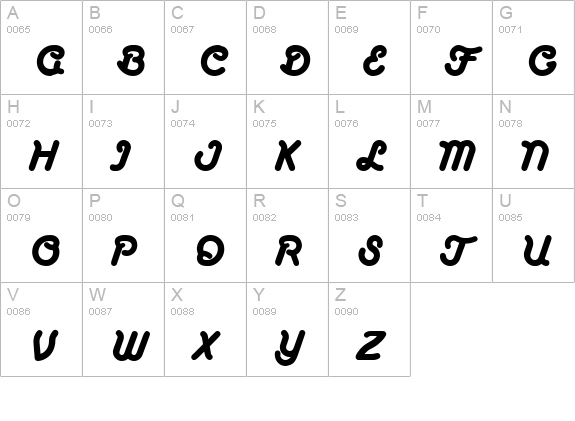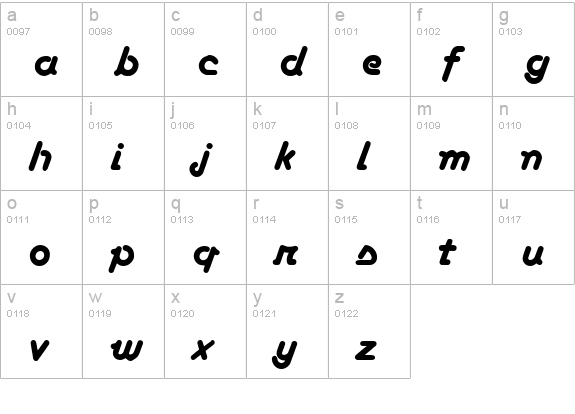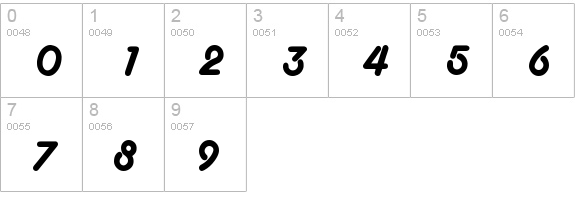
BoaScript-Regular Font Details
BoaScript-Regular is the standard, neutral variant in the BoaScript typeface family \xE2\x80\x94 well suited to general body text, paragraphs, and standard typographic work.
BoaScript-Regular is a versatile and elegant font that adds a touch of sophistication to any design project. With its clean lines and modern aesthetic, this font is perfect for a wide range of applications, from branding to editorial design. BoaScript-Regular is designed to be both stylish and easy to read, making it ideal for both print and digital projects. One of the best things about BoaScript-Regular is that it is free to download. You can get your hands on this stunning font at FontsMarket.com without having to spend a dime. Whether you're working on a personal project or a professional design, BoaScript-Regular is sure to elevate your work and make a lasting impression. Don't miss out on this opportunity to enhance your designs with BoaScript-Regular. Download it for free today at FontsMarket.com and start creating beautiful and engaging typography that will captivate your audience.